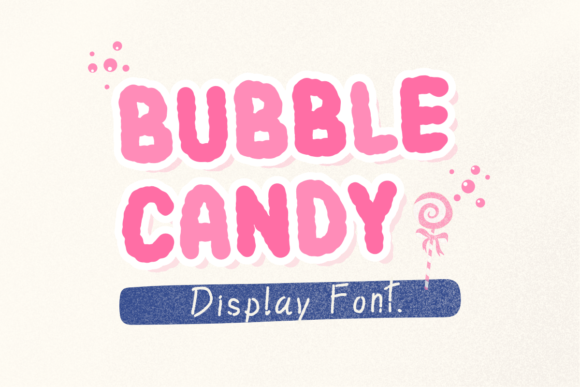
Step into a world of cheerful elegance with Bubble Candy Font, a charming display font that captivates hearts with its playful personality. Its enchanting curves and bubbly characters infuse your designs with a delightful touch of joy and whimsy.
Picture the perfect wedding place cards, brimming with love and laughter. Bubble Candy's elegant presence adds a personal touch, making each card a delightful keepsake. Or envision stunning invitations that radiate happiness, inviting your loved ones to celebrate life's special moments.
Let Bubble Candy dance across your social media posts, capturing the attention of your audience with its vibrant charm. Its eye-catching design breathes life into your content, making your words shine with personality.
Harness the power of Bubble Candy to create extraordinary branding materials that leave a lasting impression. Logos, flyers, and business cards adorned with this playful font exude a sense of warmth and approachability, inviting customers to connect with your brand on a deeper level.
And if you dream of unique and enchanting designs, Bubble Candy is your perfect companion. Its versatility knows no bounds, lending its charm to everything from cheerful greeting cards to quirky posters. Unleash your creativity and let your imagination soar as you transform ordinary designs into captivating masterpieces.
With Bubble Candy Font, the possibilities are endless. Dive into a sea of joy and let your designs blossom with happiness. Embrace the magic of this playful font and watch as your creative vision takes flight.